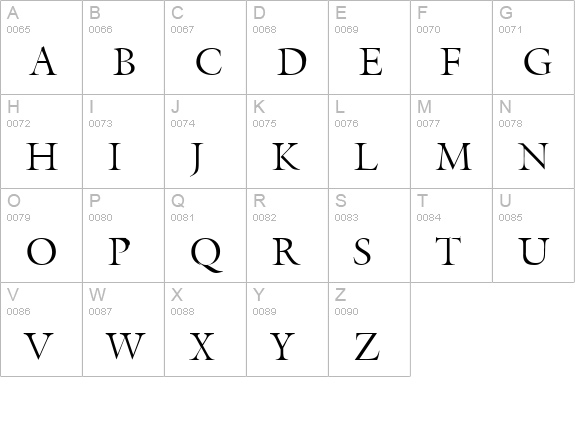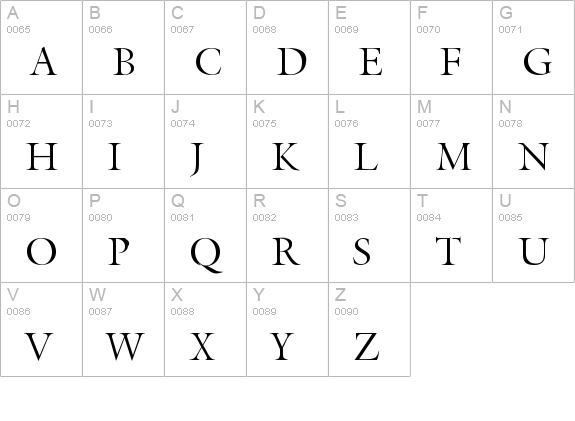
Acanthus Light SSi Light is a refined, elegant variant in the Acanthus typeface family \xE2\x80\x94 well suited to elegant body text, refined sub-headings, and luxury branding.
Acanthus Light SSi Light is a stunning and elegant font that exudes sophistication and grace. Its delicate lines and subtle curves make it perfect for adding a touch of refinement to any design project. Whether you're creating invitations, logos, or marketing materials, this font will elevate your work to the next level. And the best part? Acanthus Light SSi Light is available for free download at FontsMarket.com. This means you can easily access this beautiful font and use it in your projects without any cost. Don't miss out on the opportunity to enhance your designs with this exquisite typeface. Download Acanthus Light SSi Light now and let your creativity shine!